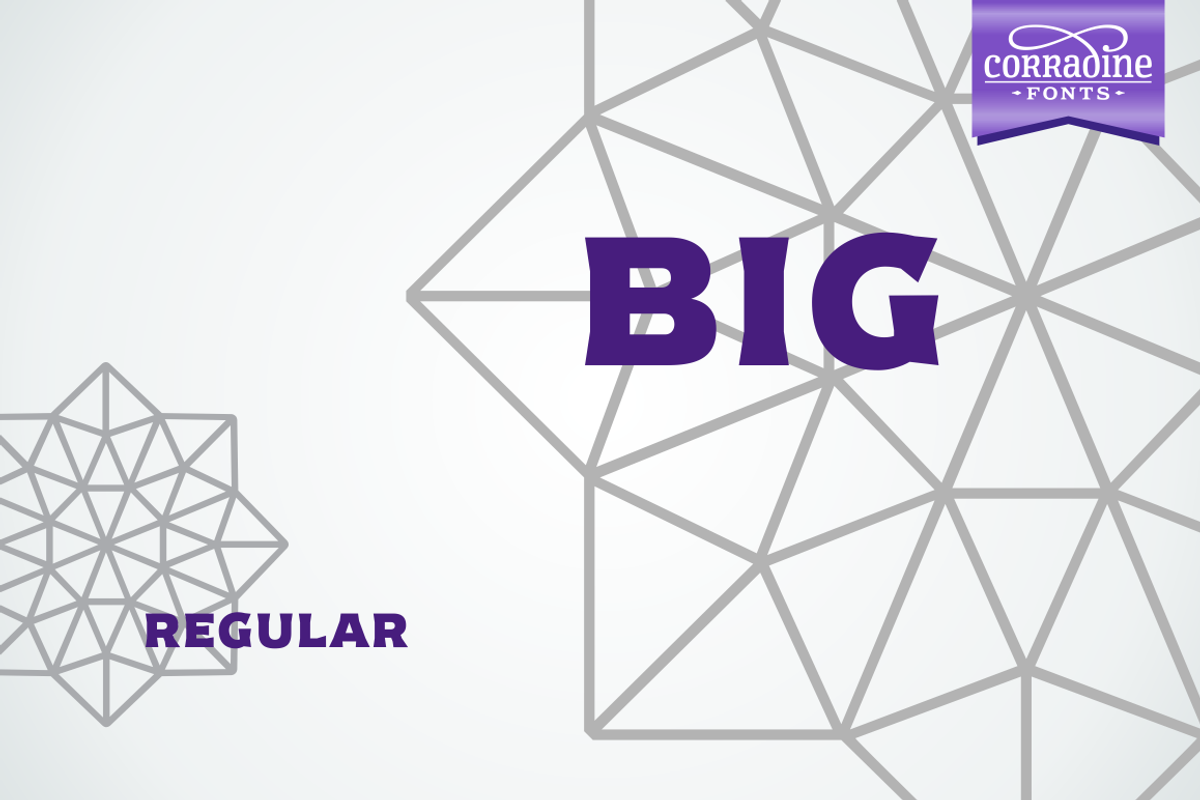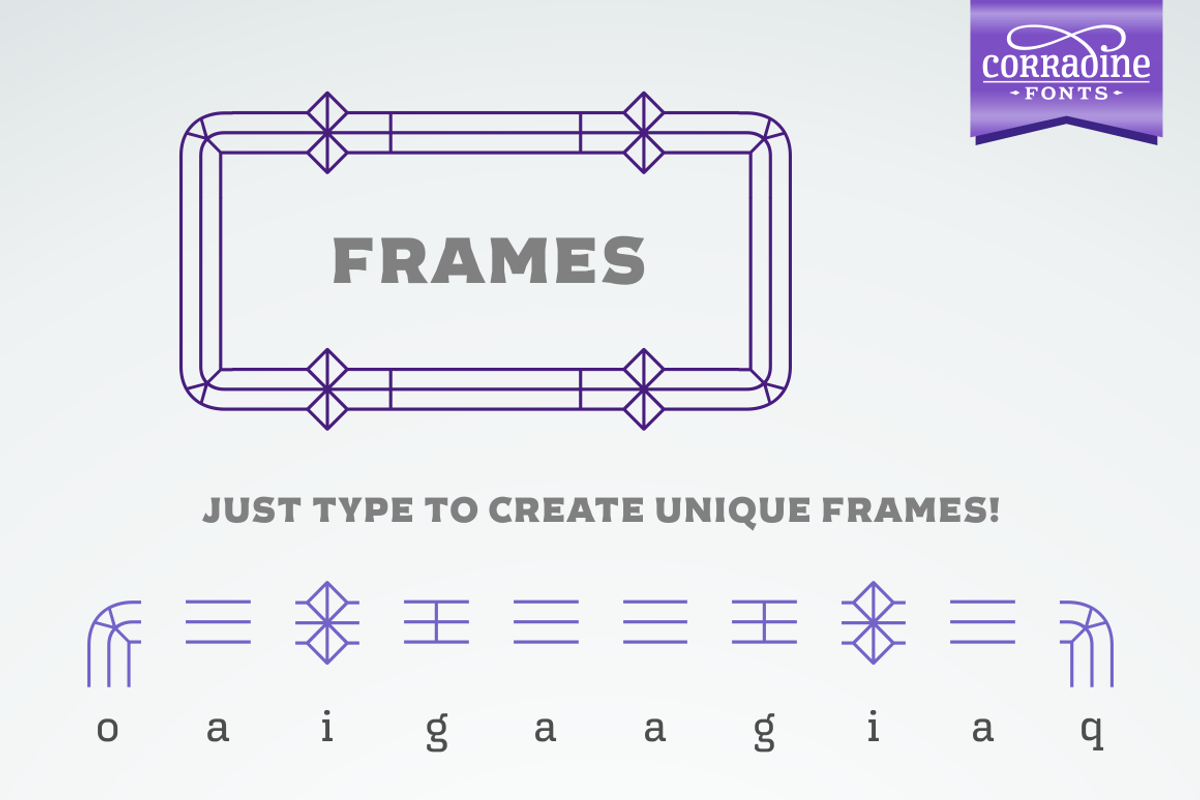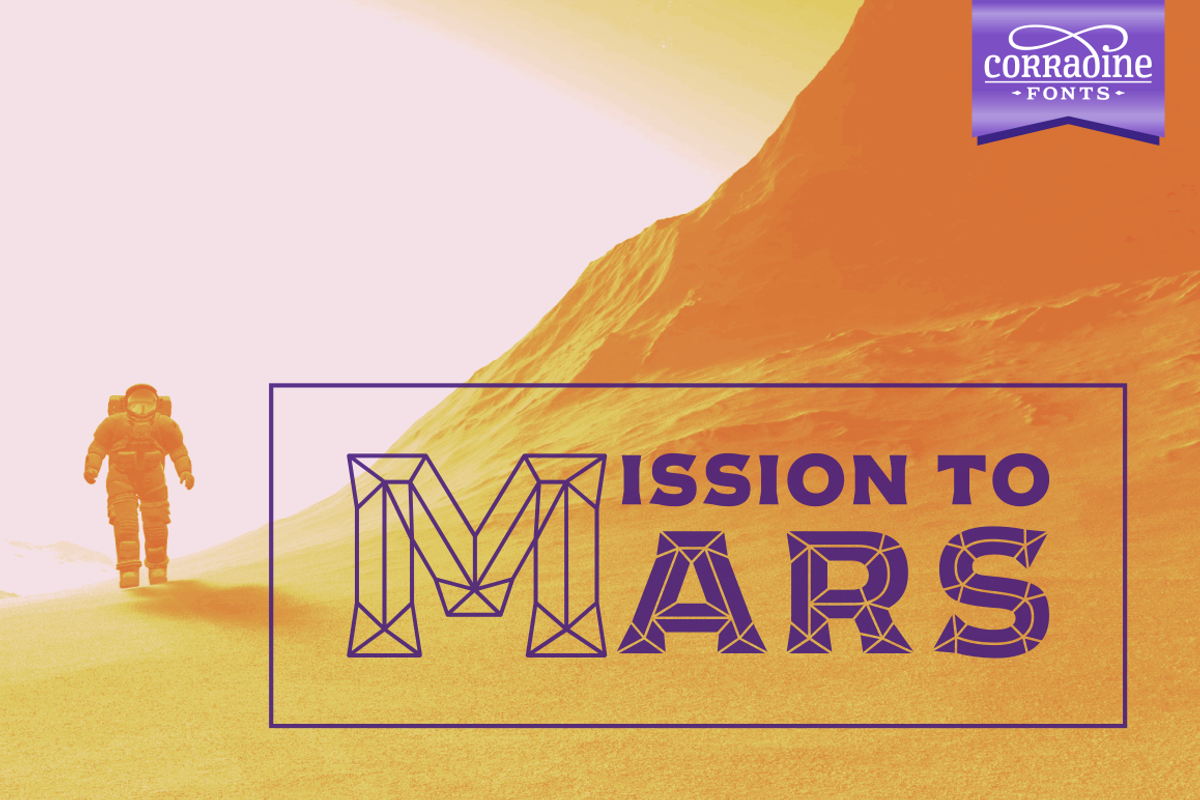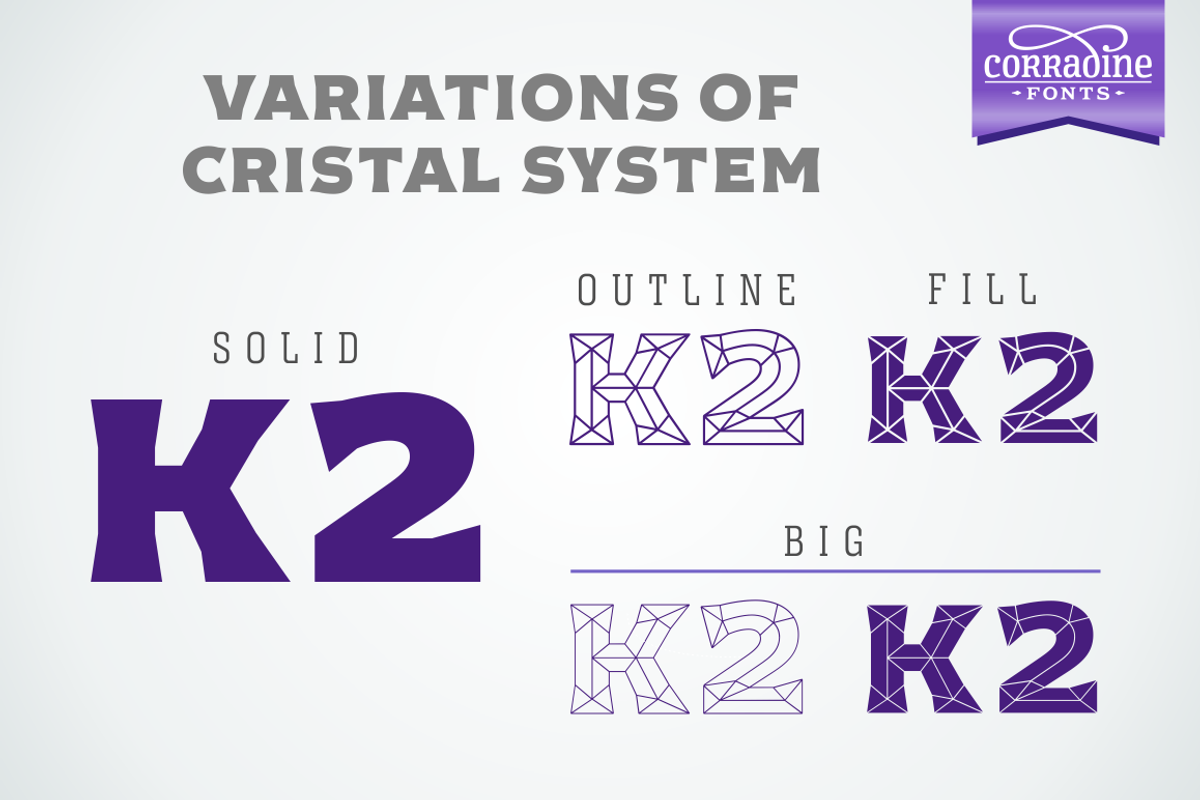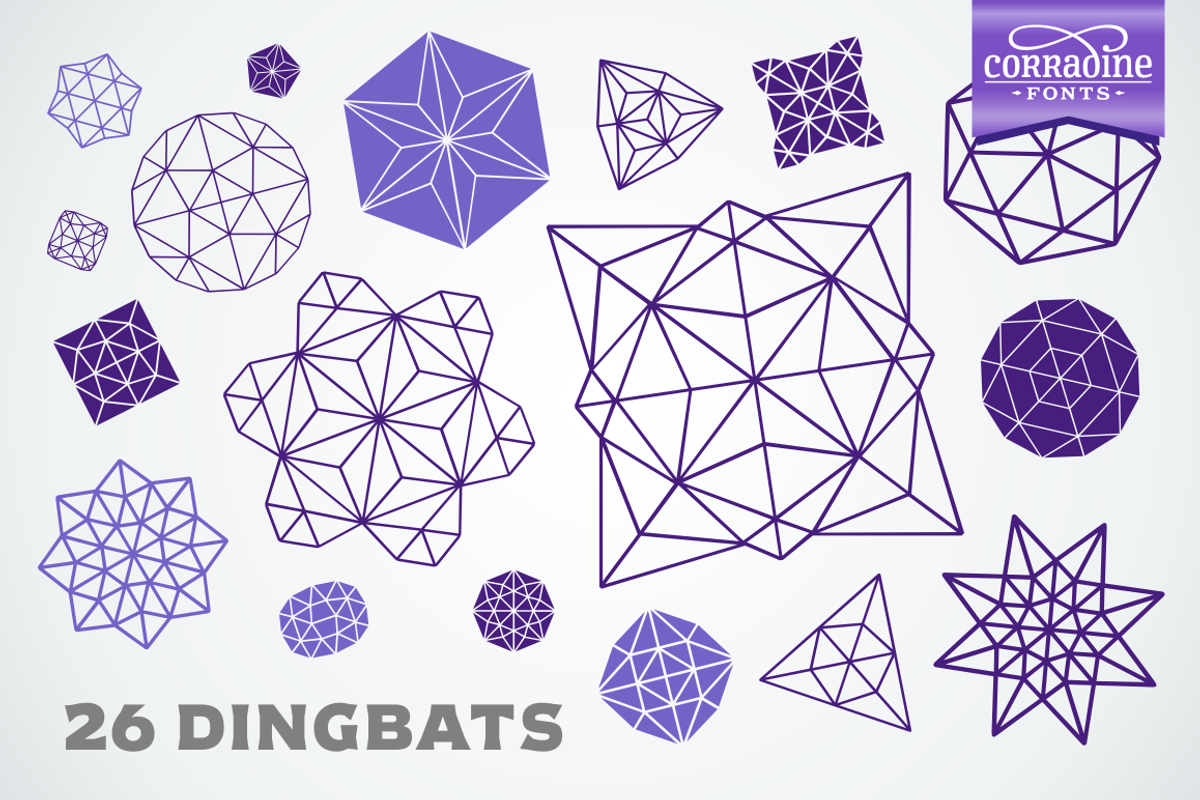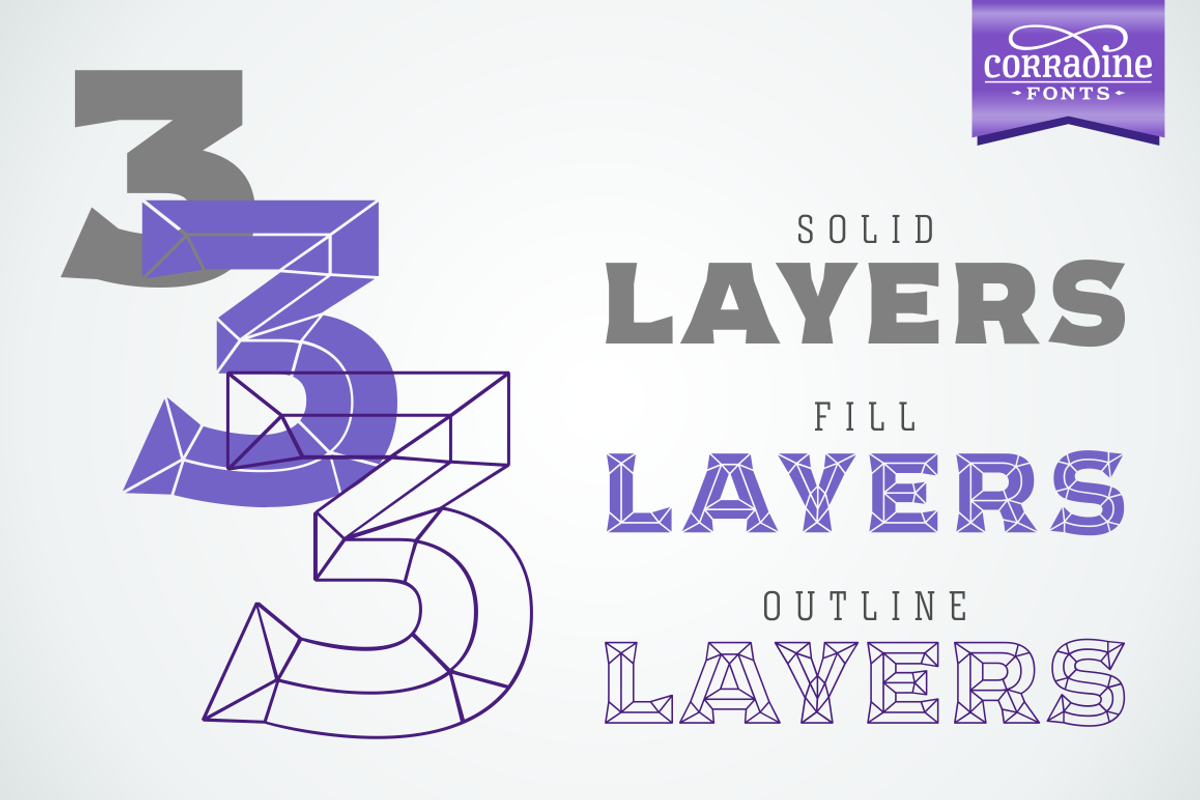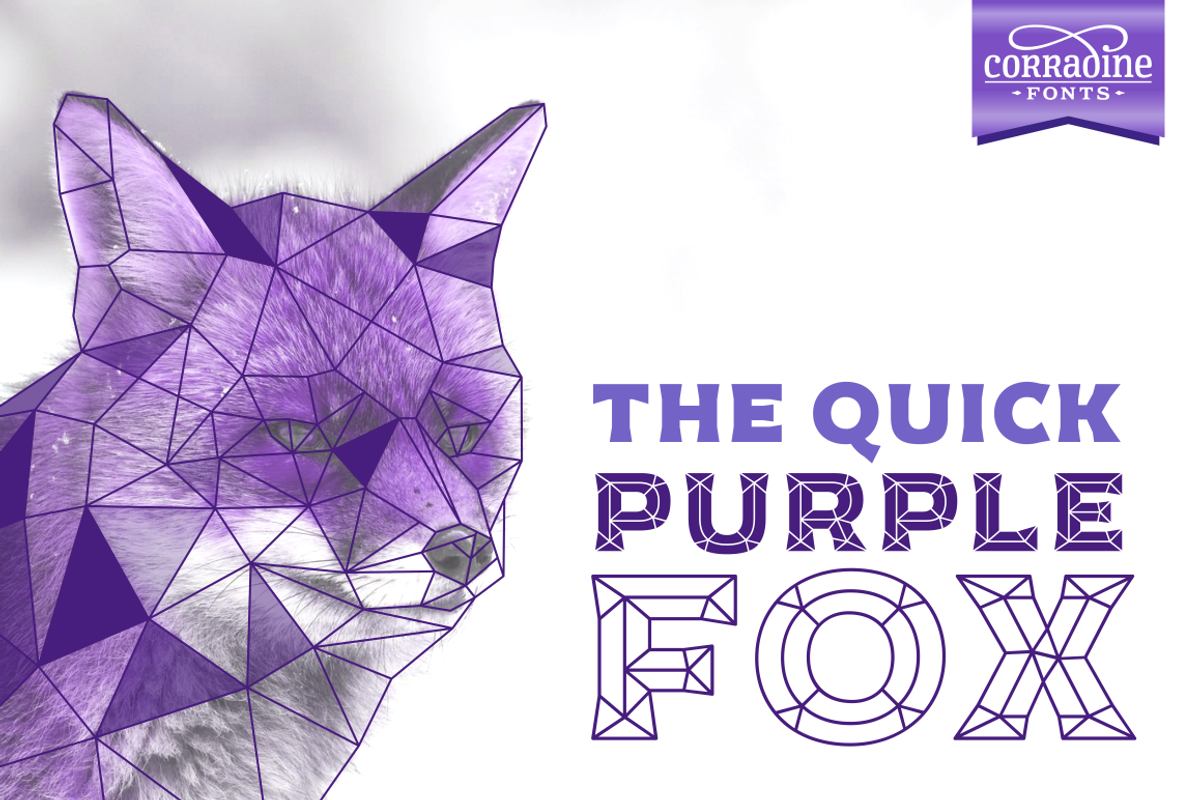
Cristal Font Family
Cristal Font Family by Corradine Fonts is a font selected for branding, posters, packaging, typography.
Why Cristal Font Family is worth a look
Cristal Font Family by Corradine Fonts fits naturally into Branding, posters, packaging, typography.